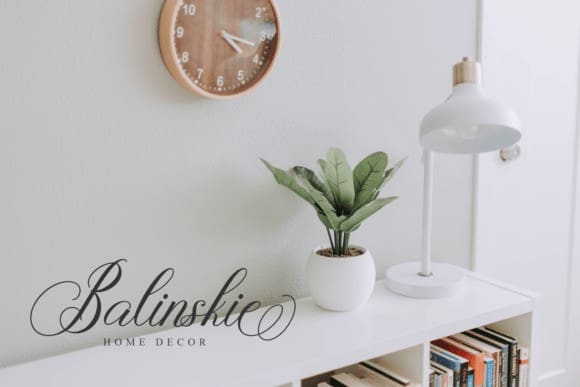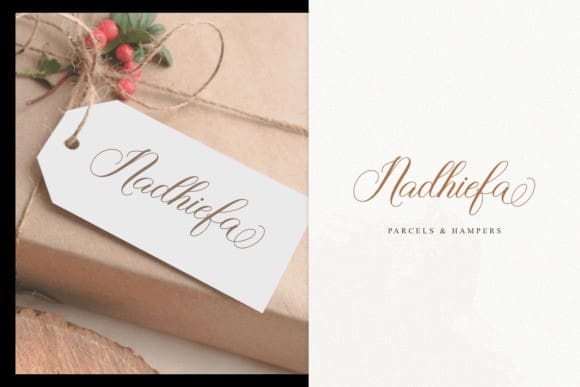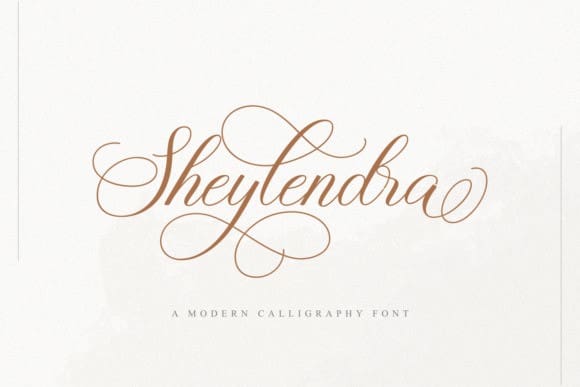
Sheylendra Font
Sheylendra Font is a modern calligraphy font with a classy style. Will make your design stand up. It would be a perfect choice to design posters, affiches, logos, t-shirt and magazine prints, eye-pleasing typographic designs and more.